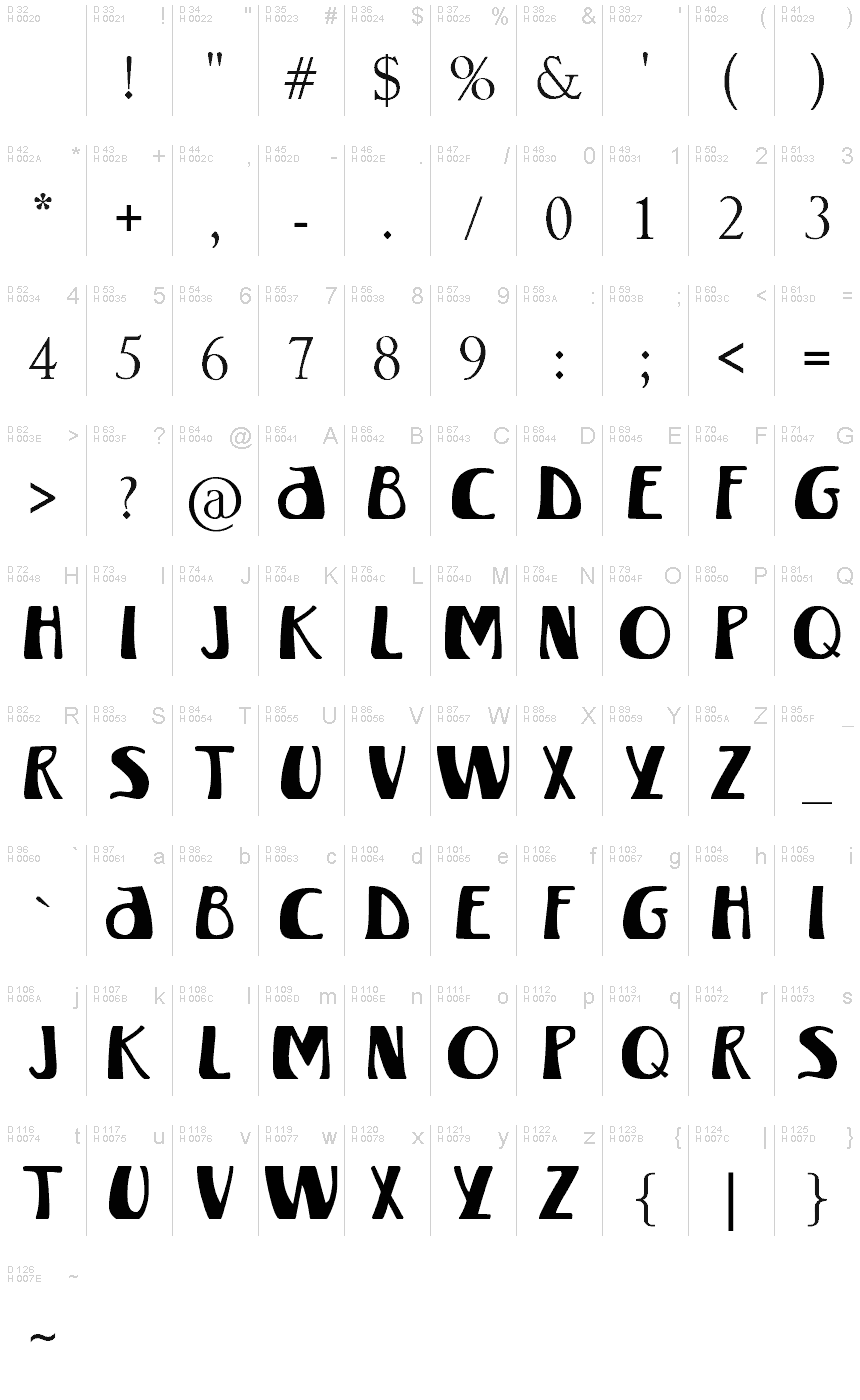
Winterland [MKII]
Winterland [MKII], designed by Nevan Orr, is a bold display font that confidently claims its space in any visual landscape. With its groovy style, Winterland [MKII] exudes a retro vibe that harkens back to the iconic design aesthetics of the 60s and 70s, yet it remains strikingly modern in its appeal. The typeface's robust weight ensures that it stands out on any backdrop, making it an ideal choice for designers who want their message to pop with an air of nostalgia.
The playful curves and dynamic flow of Winterland [MKII] infuse energy into words, rendering them as expressive art pieces. This font's aesthetic appeal lies in its ability to balance vintage charm with contemporary clarity, offering a versatile tool for creative projects ranging from concert posters and album covers to fashion branding and editorial headers.
Embrace the unique character of Winterland [MKII] for your next project and let this groovy display font transform your creative vision into a bold statement that resonates with audiences across different mediums.
The playful curves and dynamic flow of Winterland [MKII] infuse energy into words, rendering them as expressive art pieces. This font's aesthetic appeal lies in its ability to balance vintage charm with contemporary clarity, offering a versatile tool for creative projects ranging from concert posters and album covers to fashion branding and editorial headers.
Embrace the unique character of Winterland [MKII] for your next project and let this groovy display font transform your creative vision into a bold statement that resonates with audiences across different mediums.